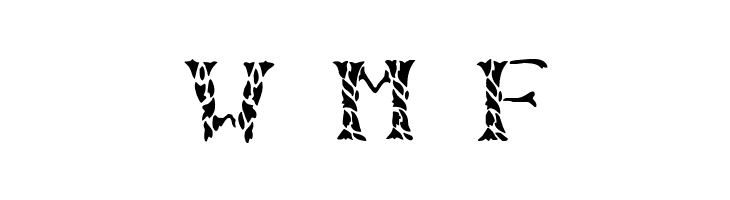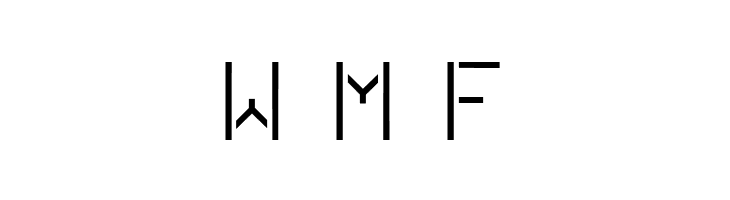
( RaseOne Full Time Artists - www.graffitifonts.com )
A bold, stencil-inspired font with geometric shapes and sharp angles.
( SeaTypes - Marcio Duarte - www.marcioduarte.com )
A bold, geometric stencil font with high contrast and industrial appeal.
( Thor Christopher Arisland - www.tcarisland.com )
A bold stencil font with geometric, blocky letterforms enclosed in squares.
( Typodermic Fonts - Ray Larabie - www.typodermicfonts.com/ )
A bold, geometric stencil font with an industrial aesthetic.
( Woodcutter - woodcutter Manero - www.woodcutter.es )
Bold, geometric stencil-style icon set with rounded lines and cut-out effects.
( Woodcutter - woodcutter Manero - www.woodcutter.es )
A bold, distressed stencil font with an industrial and gritty aesthetic.
( Zetafonts - www.zetafonts.com )
A bold stencil font with high contrast and industrial appeal.
( Zetafonts - www.zetafonts.com )
A bold stencil font with geometric shapes and modern industrial style.
( Zetafonts - www.zetafonts.com )
A modern, thin stencil font with clean lines and geometric shapes.
( Zetafonts - www.zetafonts.com )
A bold, stencil-style font with strong, blocky letters and distinct gaps.
A bold, geometric stencil font with strong industrial appeal.
( Character )
A bold, decorative stencil font with intricate leaf patterns.
( Helldunkel - www.helldunkel.com )
A bold, geometric stencil font with a modern, industrial aesthetic.
( Helldunkel - www.helldunkel.com )
A bold, slanted stencil font with geometric precision and industrial flair.
( Helldunkel - www.helldunkel.com )
A modern, geometric stencil font with a technical and industrial aesthetic.
( Jeni Pleskow - rois.org/ )
A bold, stencil-inspired font with industrial cutouts and strong, angular characters.
( Juan Casco - www.juancasco.net/ )
A bold, gothic-style stencil font with sharp angles and a dramatic presence.
( Neogrey Creative - www.neogrey.com )
A bold, geometric stencil font with strong industrial appeal.
( Our House Graphics - ourhousegraphics.com )
A bold, geometric stencil font with sharp angles and solid forms.
( Perry Mason )
A bold, stencil-style font with a rugged, industrial aesthetic.
( Perry Mason )
A bold, stencil-style font with a rugged, utilitarian look.
( Perry Mason )
A bold, stencil-style font with a rugged, industrial look.
( Perry Mason )
A bold, stencil-style font with a vintage military aesthetic.
( Perry Mason )
A bold, slanted stencil font with high contrast and a strong, authoritative presence.
( Perry Mason )
A bold, stencil-style font with rugged cutouts for a utilitarian look.
( Perry Mason )
A bold, stencil-style font with sharp, angular cuts and a rugged, vintage look.
( Perry Mason )
A bold, stencil-style font with geometric shapes and distinct cut-out sections.
( Perry Mason )
A bold, stencil-style font with sharp, angular cuts and a military aesthetic.
( Perry Mason )
A bold, stencil-style font with a military and industrial aesthetic.
( Perry Mason )
A bold, stencil-style font with a vintage military aesthetic.
( Perry Mason )
A bold, stencil-style font with strong, thick strokes and an industrial feel.
( Perry Mason )
A bold, stencil-style font with high contrast and a military-inspired aesthetic.
( Perry Mason )
A bold, stencil-style font with a rugged, industrial aesthetic.
( Perry Mason )
A bold, stencil-style font with a military aesthetic and strong presence.
( Perry Mason )
A bold, stencil-style font with a rugged, industrial look.